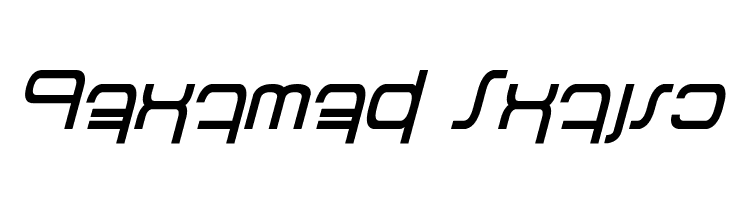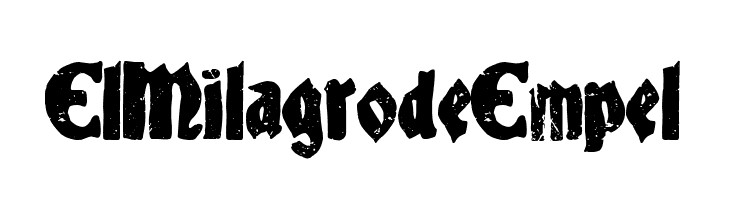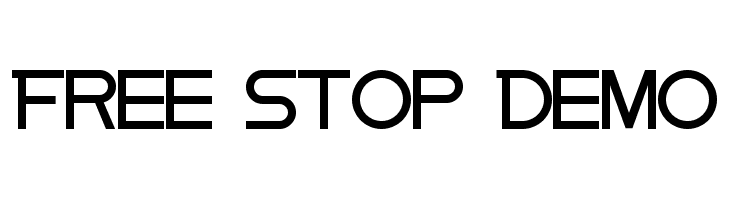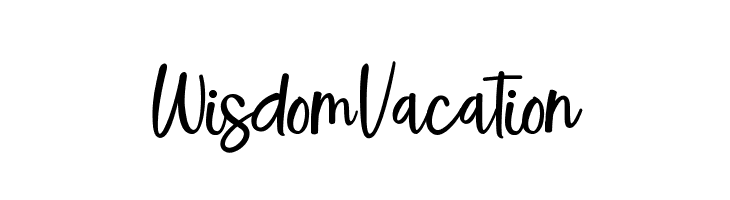
A bold, distressed font with a vintage, medieval style.
A bold, geometric font with a modern and striking design.
A bold, angular, and italic font with a futuristic outline design.
A modern, cursive script font with elegant, flowing characters.
A bold, hand-drawn font with a rough, textured, and expressive style.
A bold, gothic-inspired decorative font with a modern twist.
A bold, geometric, and condensed typeface with high contrast and modern appeal.
A playful, brush-style font with bold, hand-drawn strokes and dynamic character.
A bold, distressed font with a rugged and edgy appearance.
An elegant and sophisticated italic typeface with graceful curves.